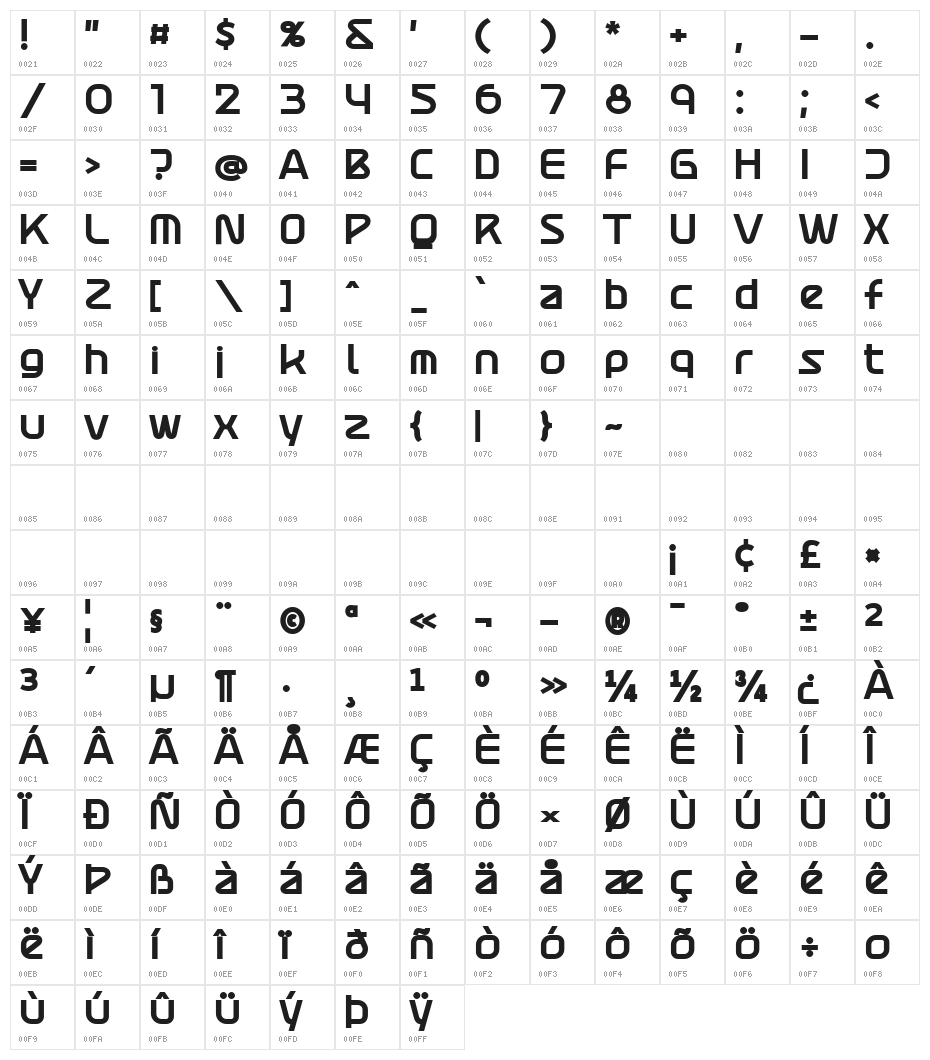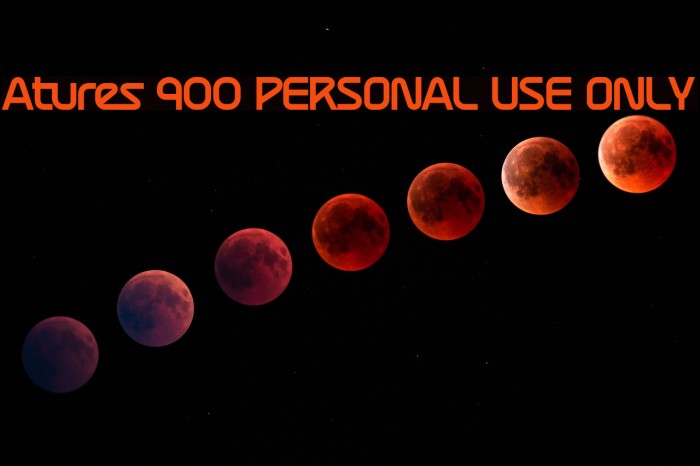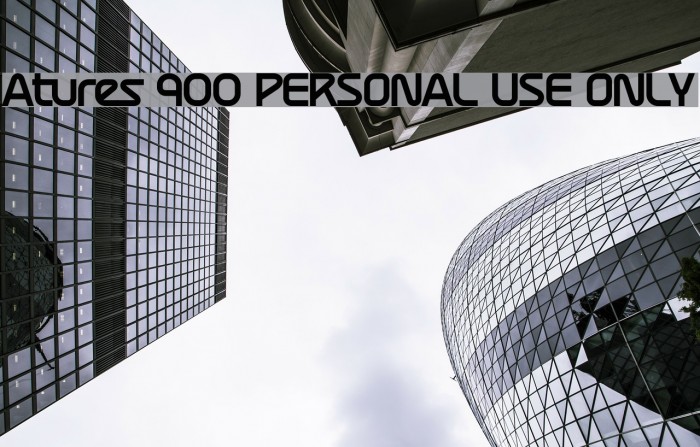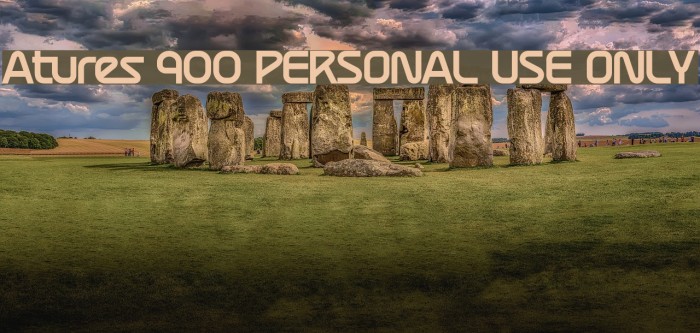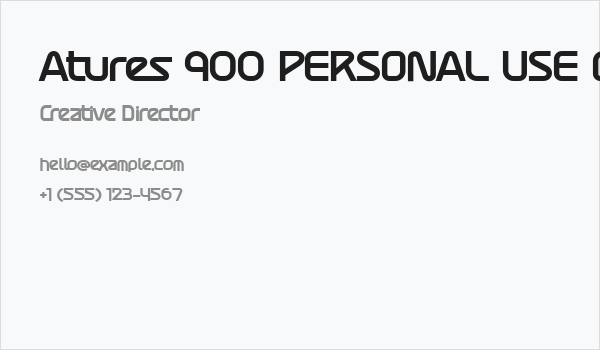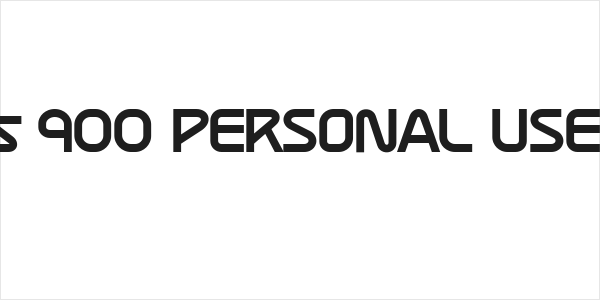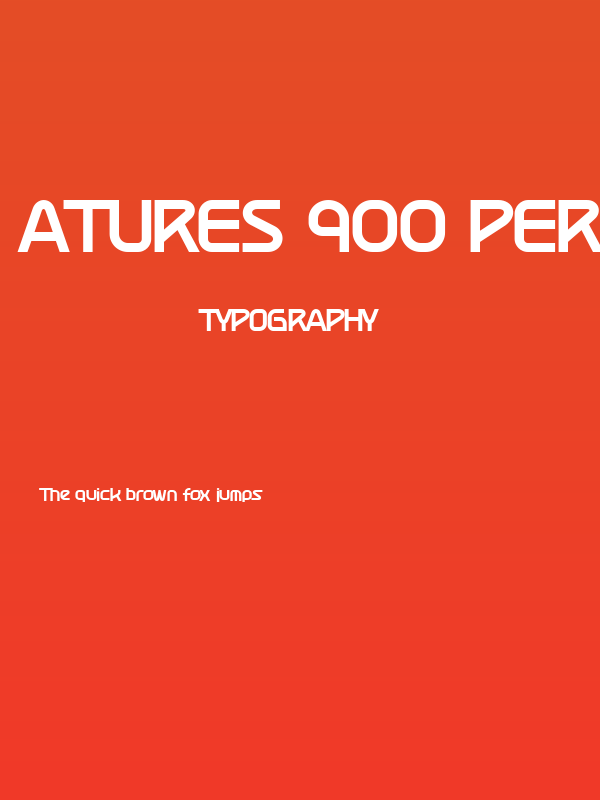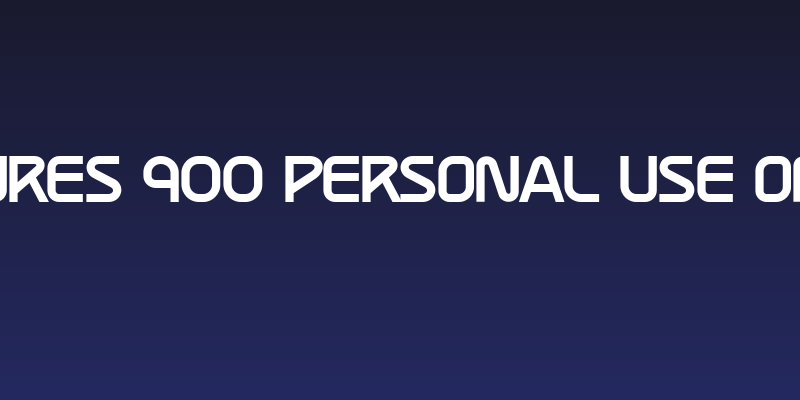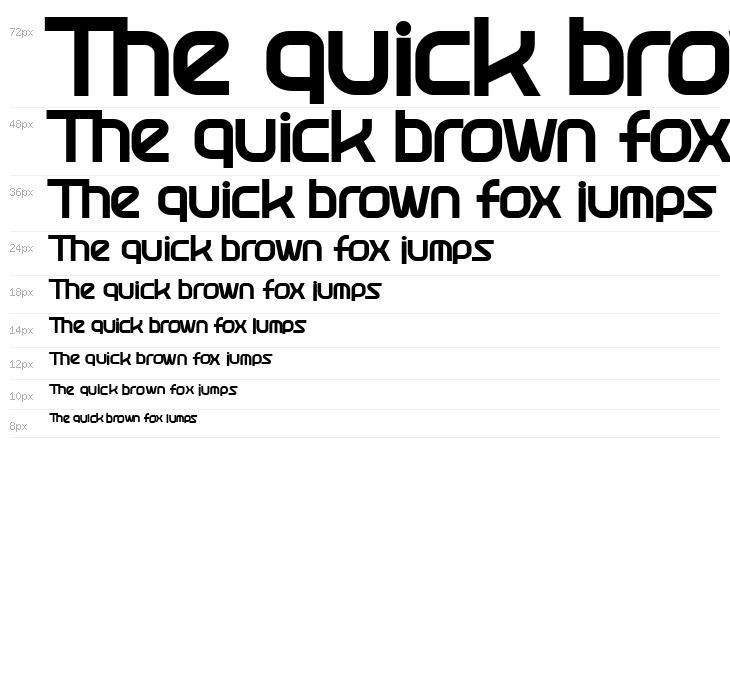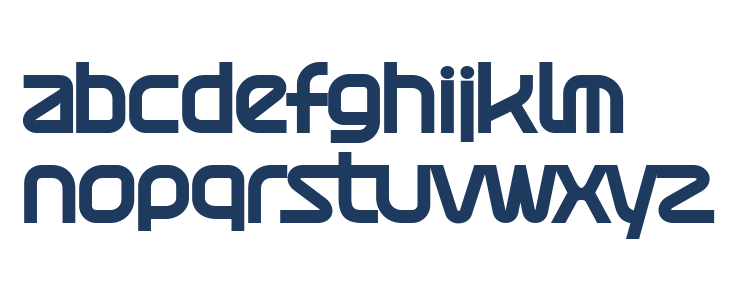
Atures 900 PERSONAL USE ONLY Font
Atures 900 PERSONAL USE ONLY Description
This font features a bold and geometric design with a modern aesthetic. The characters are constructed with thick, uniform strokes that create a strong visual impact. The uppercase letters have a distinct angularity, while the lowercase letters maintain a consistent style with rounded edges. The numerals and special characters follow the same geometric pattern, ensuring a cohesive look across all elements. The overall appearance is clean and futuristic, making it suitable for projects that require a contemporary and assertive typeface.
| Proposed Projects | Ideal for branding, advertising, posters, and digital media where a strong, modern presence is desired. |